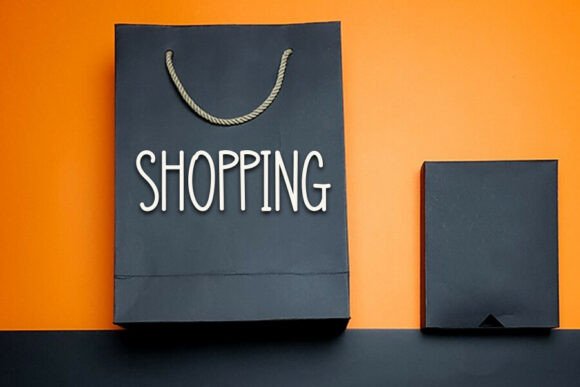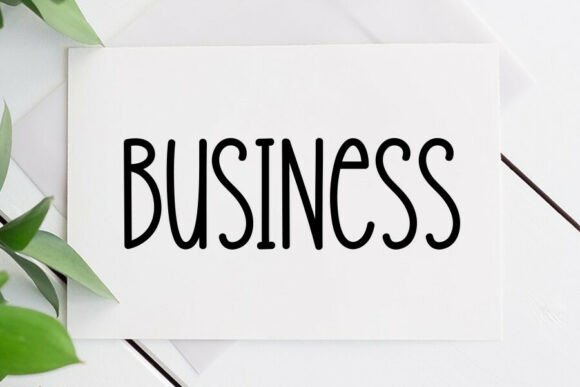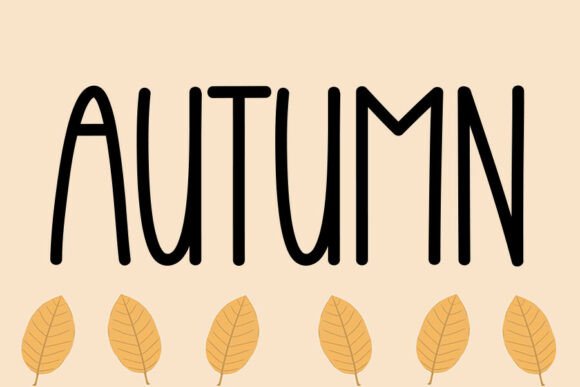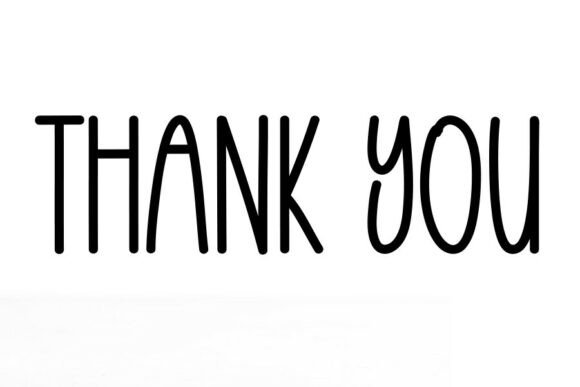
The Perfect Catch for Your Next Design Project
Have you ever found yourself staring at a blank canvas, trying to come up with the perfect way to express your feelings to a loved one? Maybe it’s a heartfelt message for Father’s Day, a birthday card for a friend, or a special announcement for a family member. Whatever the occasion, finding the right font can make all the difference in conveying your emotions and making the moment truly special.
That’s where Basket Font comes in – a beautiful, tall, and playful handwritten font that adds a touch of warmth and personality to any design. With its slim, elongated characters, Basket Font is perfect for personal and emotional projects, from t-shirts and posters to greeting cards and more. As a designer, having access to this versatile font can be a game-changer, allowing you to create authentic and meaningful designs that speak directly to your audience.
Basket Font Key Features
- Font Family: Basket Font is a sans-serif font family designed for digital use, suitable for various applications such as branding, advertising, and editorial content.
- Character Set: Supports a wide range of languages, including Latin, Cyrillic, and Greek alphabets, making it a versatile font for global use.
- Unique Characteristics: Features a distinctive, modern design with clean lines, geometric shapes, and a friendly tone, making it an excellent choice for creating engaging and approachable visual identities.
Basket Font Review
As a designer, I’ve had the chance to work with the Basket Font on a recent project. Here’s my honest review.
- Unique Character: The Basket Font has a distinct, playful feel that can add a lot of character to a design. It’s perfect for projects that need a bit of whimsy.
- Legibility: The font is surprisingly legible, even at smaller font sizes. This makes it a great choice for body text or titles.
- Versatility: The Basket Font can work well in both digital and print designs, making it a versatile choice for designers.
- Formality: The Basket Font may not be the best choice for formal or professional designs, as it has a more casual feel.
- Readability in Large Text: While the font is legible at smaller sizes, it can become less readable when used in large text. This may make it less suitable for headlines or titles.
- Limited Character Set: The Basket Font may not include all the characters you need, such as accents or special symbols.
Overall, I think the Basket Font is a great choice for designers looking for a unique and playful font. While it may have some limitations, it’s a great addition to any design library.
Tips for Getting the Most Out of Basket Font
Use the Basket font for creating playful and whimsical designs.
Pair the Basket font with bold, bright colors to create a visually appealing contrast.
Experiment with different font sizes and combinations to create a unique visual effect.
Common Use Cases for Basket Font
Use the Basket font for:
Children’s book covers and illustrations
Food and beverage branding
Party and event invitations
Playful and whimsical advertising campaigns